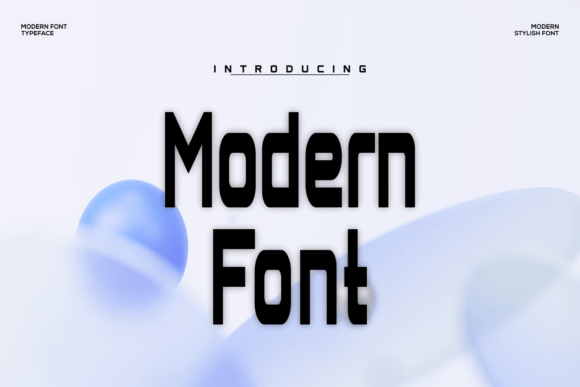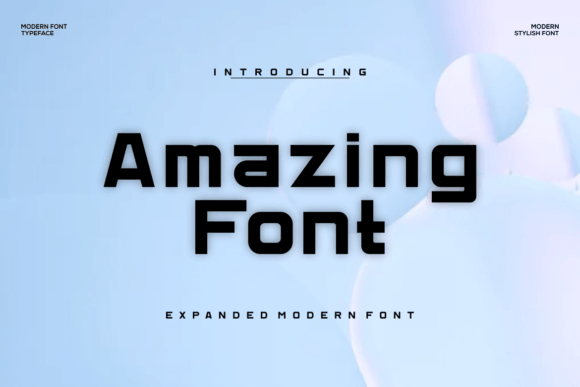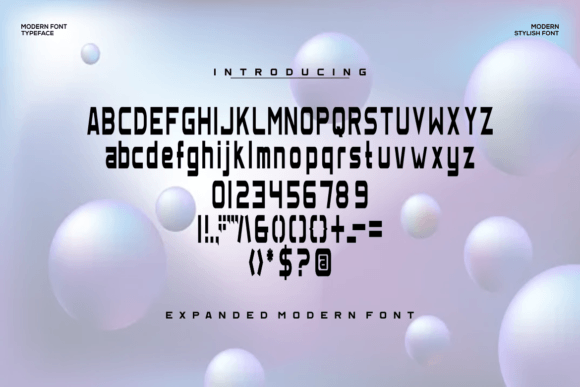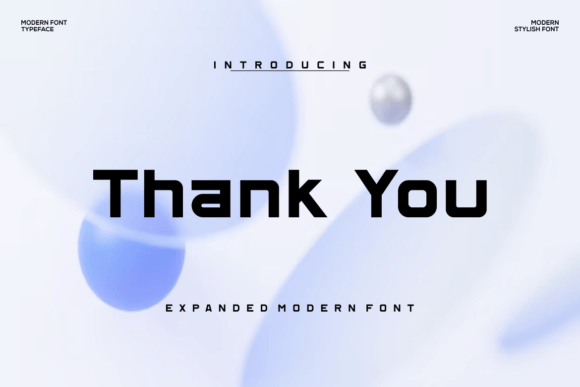
Introducing Ganjaruf Font: The Ultimate Modern Display Font for Designers and Crafters
In the world of design, fonts play a crucial role in conveying messages, expressing creativity, and building brand identities. For designers, crafters, and entrepreneurs, finding the perfect font can be a daunting task. That’s why we’re excited to introduce Ganjaruf Font, a bold and authentic display font that’s perfect for a wide range of applications.
What is Ganjaruf Font?
Ganjaruf Font is a modern display font that’s designed to make a statement. With its bold and authentic style, this font is perfect for designers and crafters who want to add a touch of sophistication and elegance to their projects. Whether you’re working on a logo, t-shirt printing, or creative products, Ganjaruf Font is the perfect choice.
Key Features of Ganjaruf Font
So, what makes Ganjaruf Font stand out from the rest? Here are some of its key features:
- Bold and Authentic Style: Ganjaruf Font has a bold and authentic style that’s perfect for making a statement.
- High-Quality Design: This font is designed with high-quality and precision, ensuring that it looks great in a variety of contexts.
- Versatile: Ganjaruf Font is versatile and can be used for a wide range of applications, including logos, t-shirt printing, creative products, and more.
- Easy to Read: Despite its bold style, Ganjaruf Font is easy to read, making it perfect for use in headlines, titles, and other applications where readability is important.
Use Cases for Ganjaruf Font
So, what can you use Ganjaruf Font for? The possibilities are endless! Here are some use cases to get you started:
- Logo Design: Use Ganjaruf Font to create a bold and memorable logo for your brand.
- T-Shirt Printing: Add a touch of style to your t-shirt designs with Ganjaruf Font.
- Creative Products: Use Ganjaruf Font to create eye-catching designs for creative products, such as mugs, phone cases, and more.
- Advertising: Use Ganjaruf Font to create bold and attention-grabbing ads that get noticed.
Why Choose Ganjaruf Font?
With so many fonts available, why choose Ganjaruf Font? Here are just a few reasons:
- Unique Style: Ganjaruf Font has a unique style that’s sure to make your designs stand out.
- High-Quality Design: This font is designed with precision and attention to detail, ensuring that it looks great in a variety of contexts.
In conclusion, Ganjaruf Font is a bold and authentic display font that’s perfect for designers and crafters who want to add a touch of sophistication and elegance to their projects. With its high-quality design, versatility, and ease of use, this font is sure to become a staple in your design toolkit. So why wait? Download Ganjaruf Font today and start creating stunning designs that get noticed!
Presenting our new product **Ganjaruf Font** – Modern Font **GanjarufFont** – Modern Font is a bold and authentic display font. This font is perfect for any branding project such as logos, t-shirt printing, creative products, and more. Extraordinary in a variety of contexts.